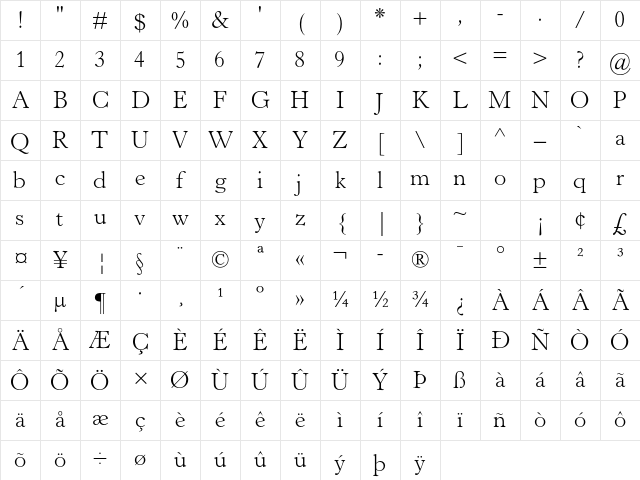
Horley Old Style MT Std Light
Designer: Unknown
Design Context for Horley Old Style MT Std
Horley Old Style MT Std is a composed and adaptable typeface that performs quietly and consistently across a wide range of design contexts. Its slender proportions lend an understated elegance to any composition.